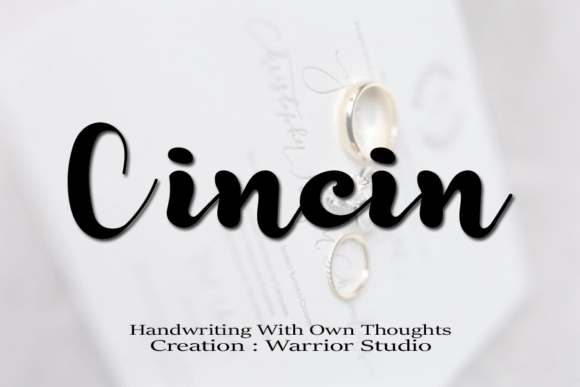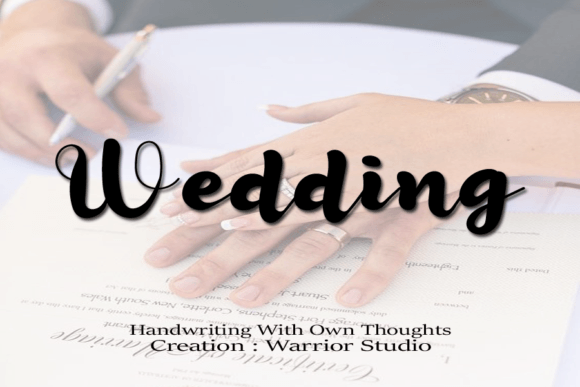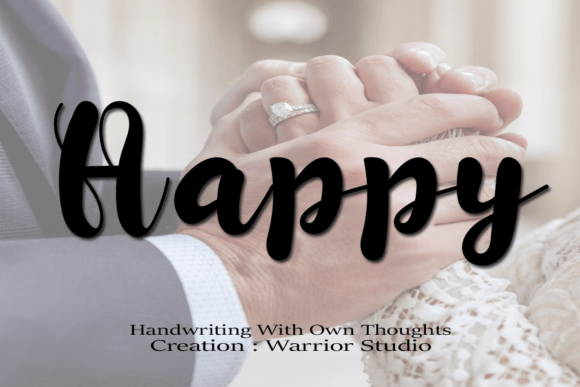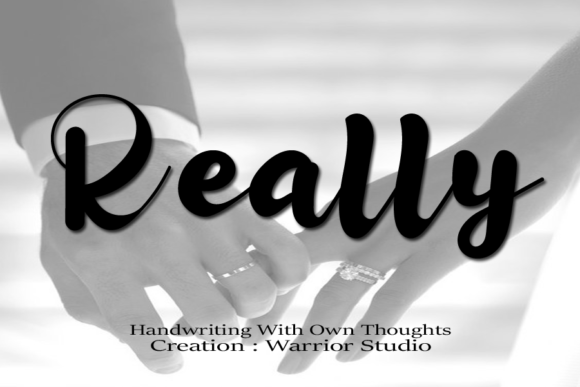
About Husband Font
Husband is a delicate and gracefully flowing handwritten font that exudes sweetness and joy. Designed with a gentle touch, this font is particularly well-suited for creating romantic and personalized elements, making it an ideal choice for crafting wedding invitations, cards, and any design that calls for a tender and heartfelt aesthetic.
The dainty strokes of Husband lend an air of elegance and charm, making it the perfect companion for projects that seek to evoke a sense of romance. Whether you’re designing the perfect wedding invitation, creating heartfelt cards for a special occasion, or infusing a touch of warmth into any design, Husband stands as a font that effortlessly conveys a sense of intimacy and personal connection.
The flowing nature of Husband enhances the script, creating a visually pleasing and harmonious appearance. It adds a layer of sophistication to your text, making it not just words on paper but a visual expression of love and emotion.
Imagine the beautiful possibilities as Husband graces your wedding stationery, infusing each word with a romantic and personalized feel. From save-the-date cards to thank-you notes, this font becomes a key element in capturing the essence of the occasion.
Beyond weddings, Husband lends itself beautifully to various design applications where a touch of sweetness and joy is desired. Whether it’s creating heartfelt messages, designing romantic quotes, or adding a personalized touch to any creative project, Husband is a font that delicately weaves a sense of love and tenderness into your designs.
In summary, Husband is more than just a font; it’s a romantic brushstroke that adds a delightful and personalized dimension to your creations. Let it be the tender voice that speaks through your design, creating moments of joy and connection for those who experience its sweet and flowing charm.